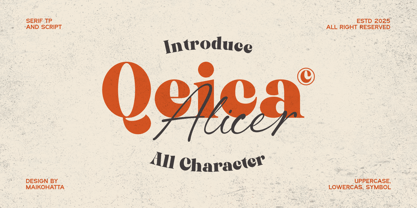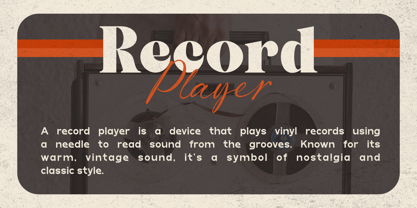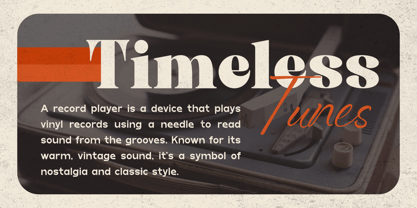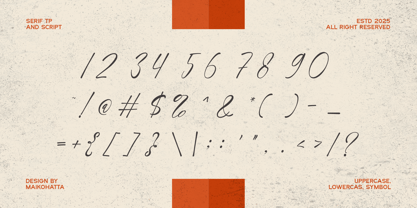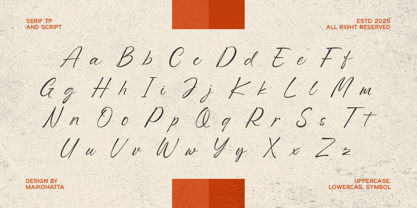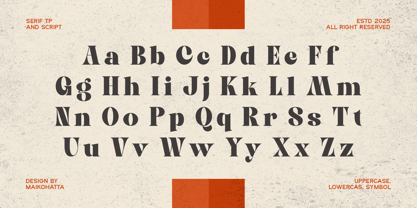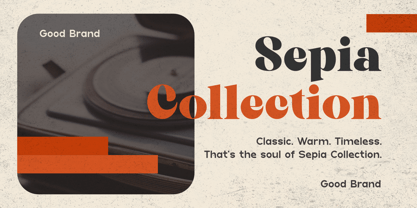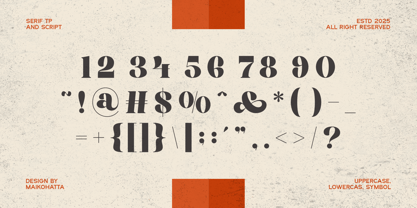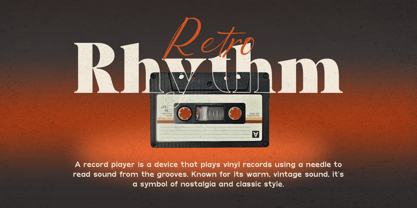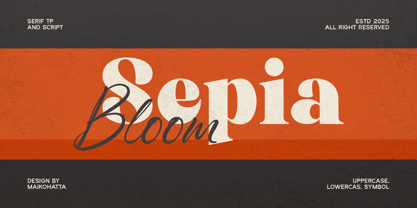
Alicer Script
by Maikohatta
The Alicer Script Font Family was designed by Gilang Ternadho and published by Maikohatta. Alicer Script contains 2 styles and family package options. More about this family
Introducing Qeica, a stylish font duo that blends modern elegance with timeless character. Featuring a refined serif and a graceful script, Qeica is designed to bring a harmonious balance of structure and flair to any creative project.
Whether you're crafting a luxurious brand, designing editorial layouts, or creating romantic stationery, Qeica offers the versatility and charm to make your message unforgettable.
Qeica Serif – A contemporary serif with high contrast, sharp details, and classic charm. Ideal for headlines, logos, and refined branding.
Qeica Script – A smooth, flowing script with natural ligatures and an authentic handwritten feel. Perfect for names, taglines, and elegant accents.
Designers: Gilang Ternadho
Foundry: Maikohatta